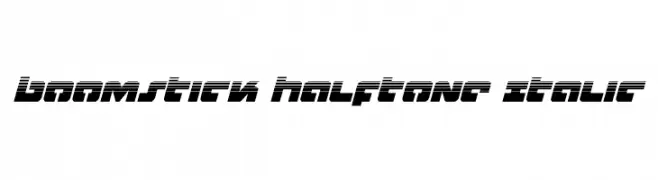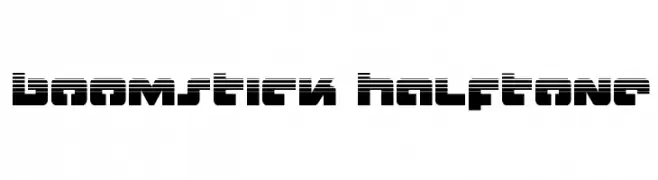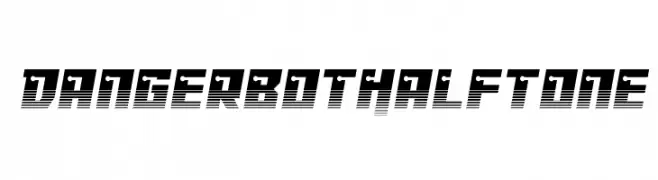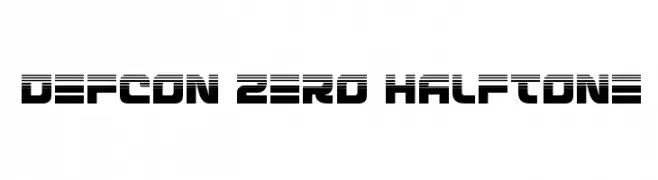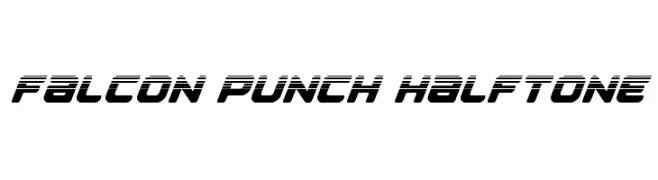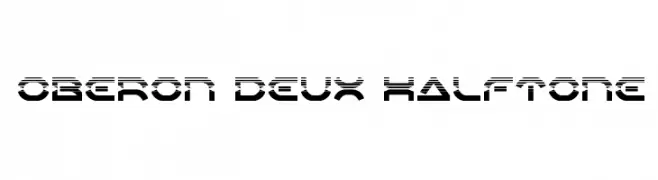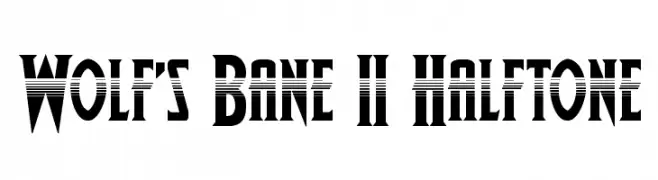
A bold, halftone-effect font with a dynamic and modern style.
A bold, dynamic font with a futuristic halftone effect and sporty aesthetic.
A bold, italicized font with a futuristic half-tone effect.
A bold, futuristic font with a half-tone pattern and strong visual impact.
A bold, futuristic font with a halftone gradient effect and geometric structure.
A bold, italicized font with a futuristic halftone effect and geometric design.
A bold, geometric font with a halftone effect, perfect for futuristic designs.
A bold, italicized font with a futuristic halftone effect and dynamic style.
A bold, geometric font with a halftone effect, ideal for futuristic designs.
A bold, futuristic font with a halftone effect and geometric design.